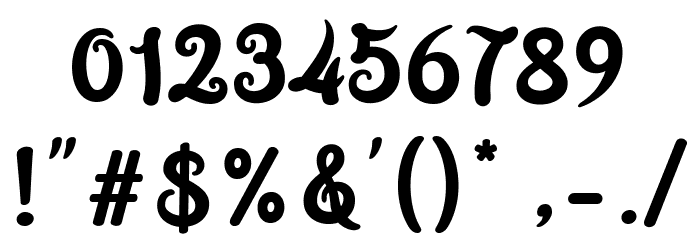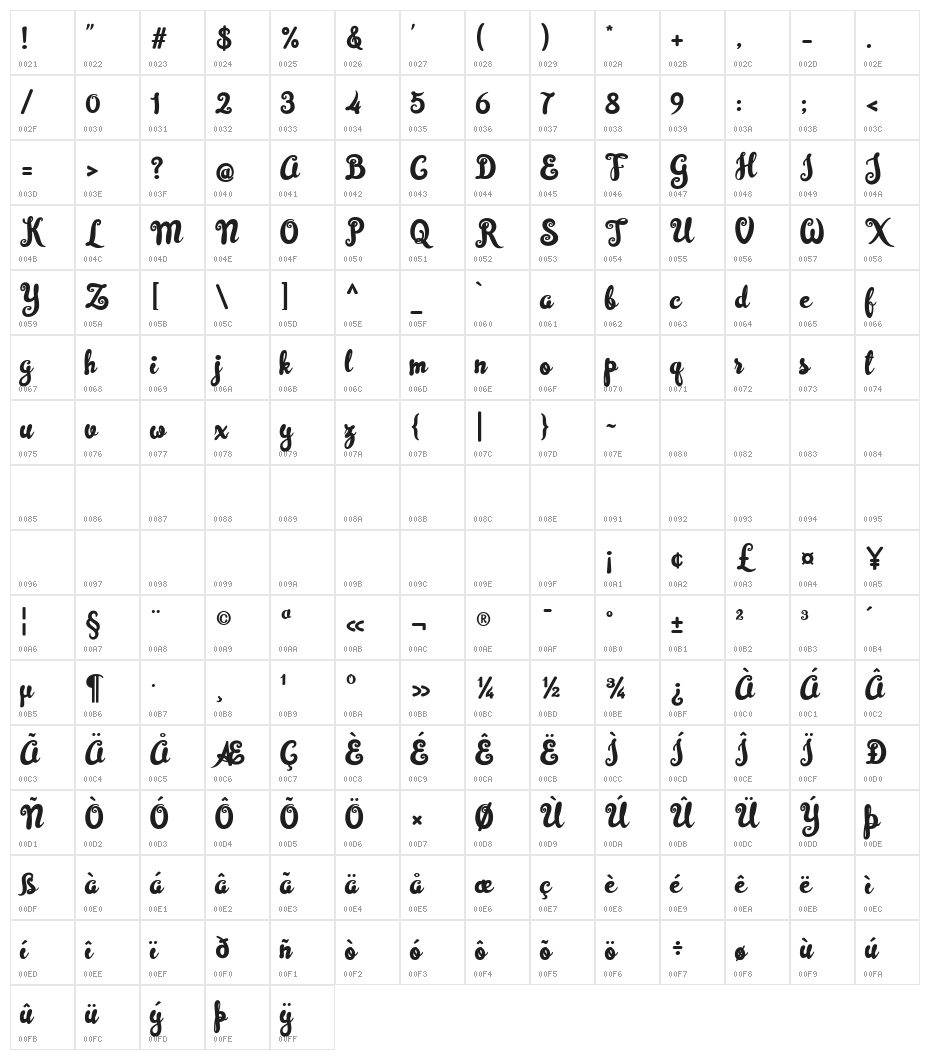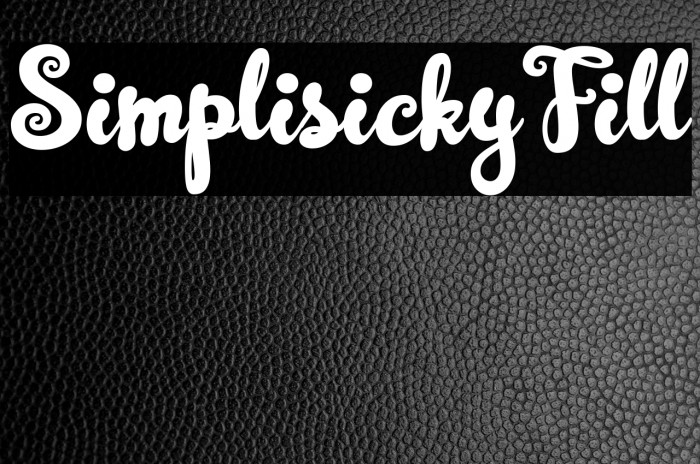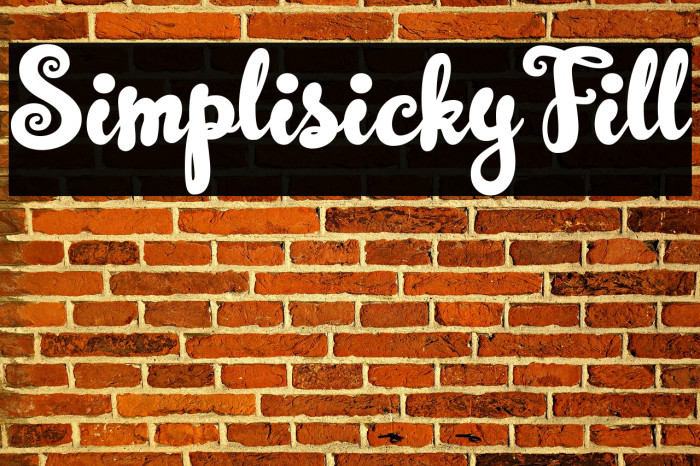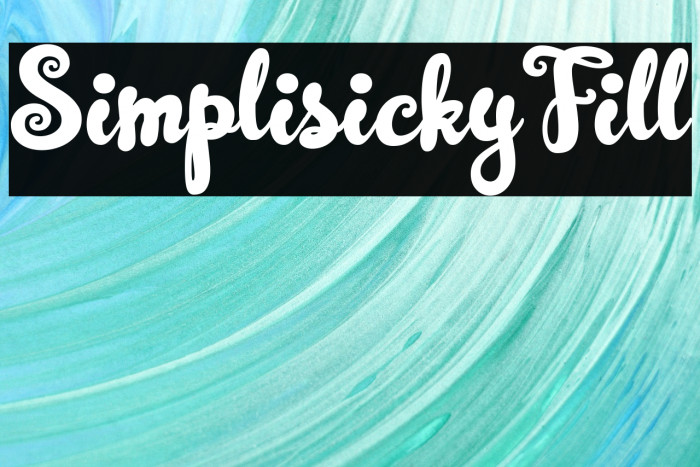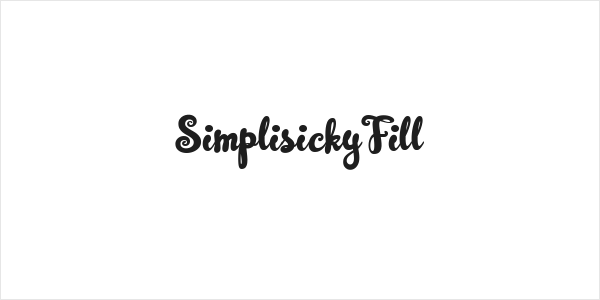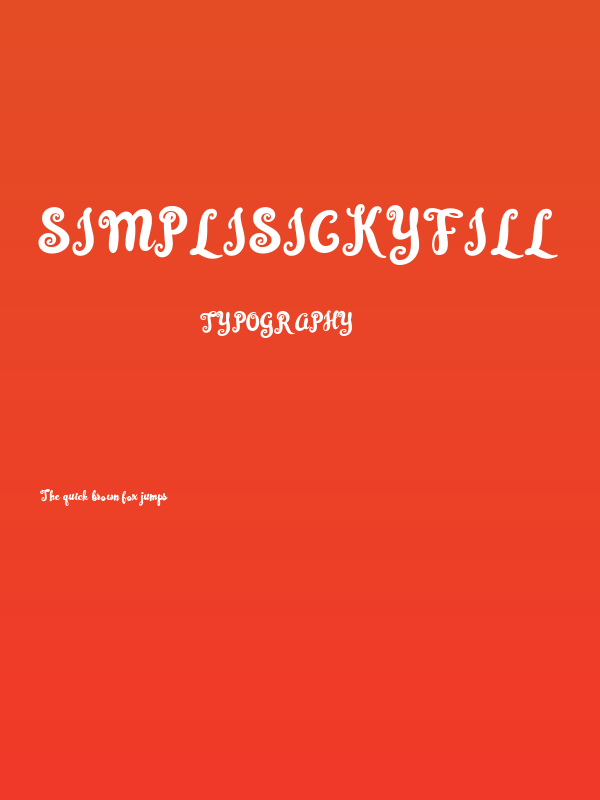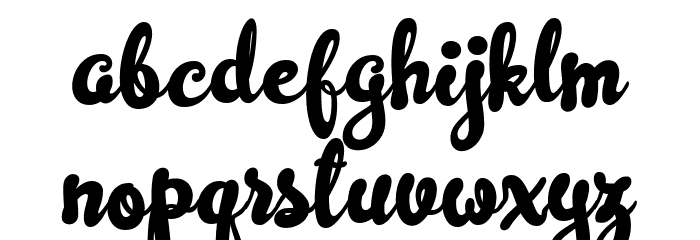
SimplisickyFill Font
SimplisickyFill Description
This font features a playful and whimsical design, characterized by its bold and curvy letterforms. The uppercase letters have a distinct looped style, giving them a lively and energetic appearance. The lowercase letters maintain a consistent flow, with smooth curves and rounded edges that enhance its friendly and approachable feel. Numbers and special characters follow the same playful aesthetic, making them stand out with their unique shapes. The overall design is highly decorative, making it suitable for projects that require a touch of fun and creativity.
Proposed ProjectsIdeal for children's books, playful branding, party invitations, and creative posters.